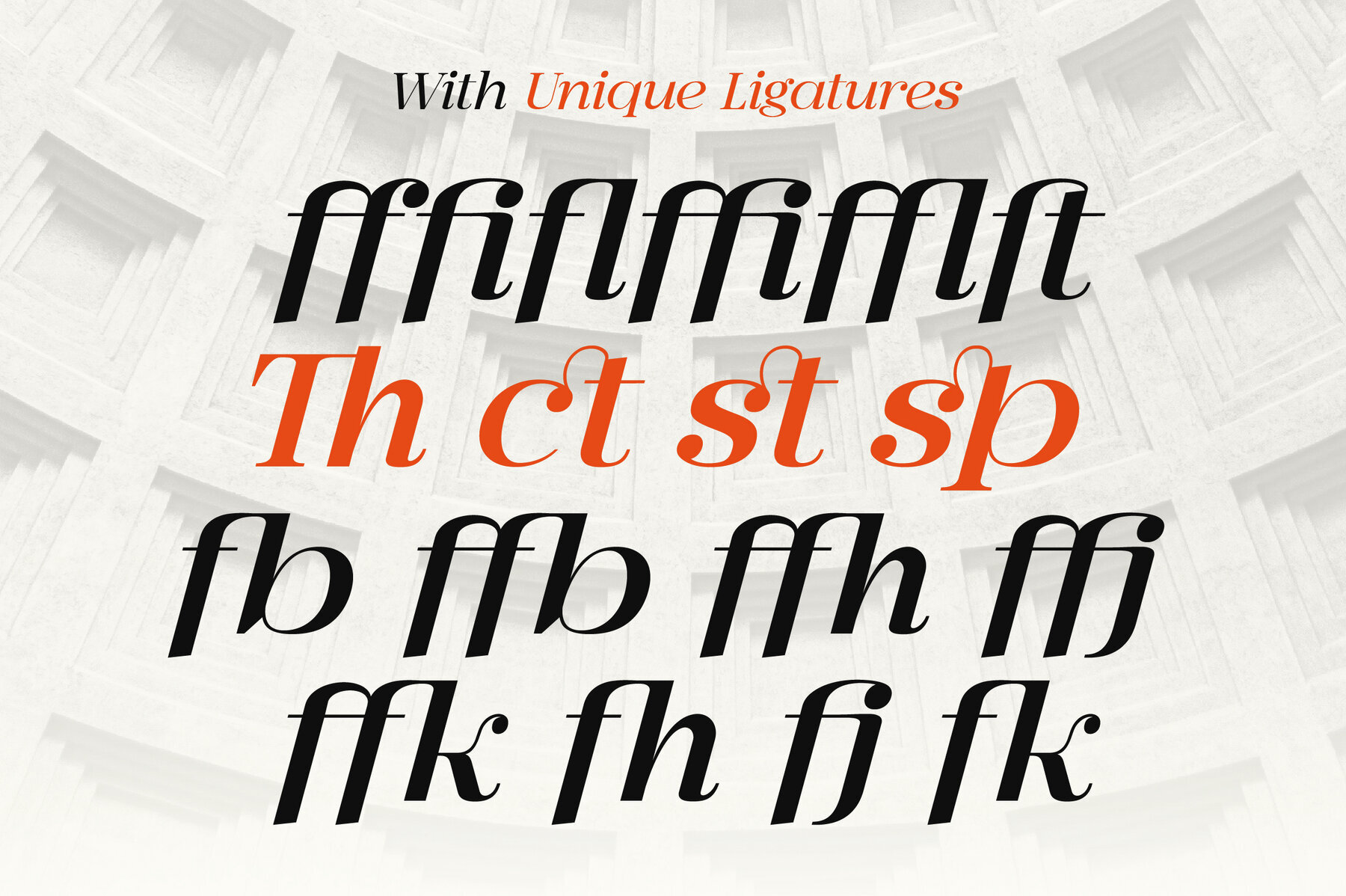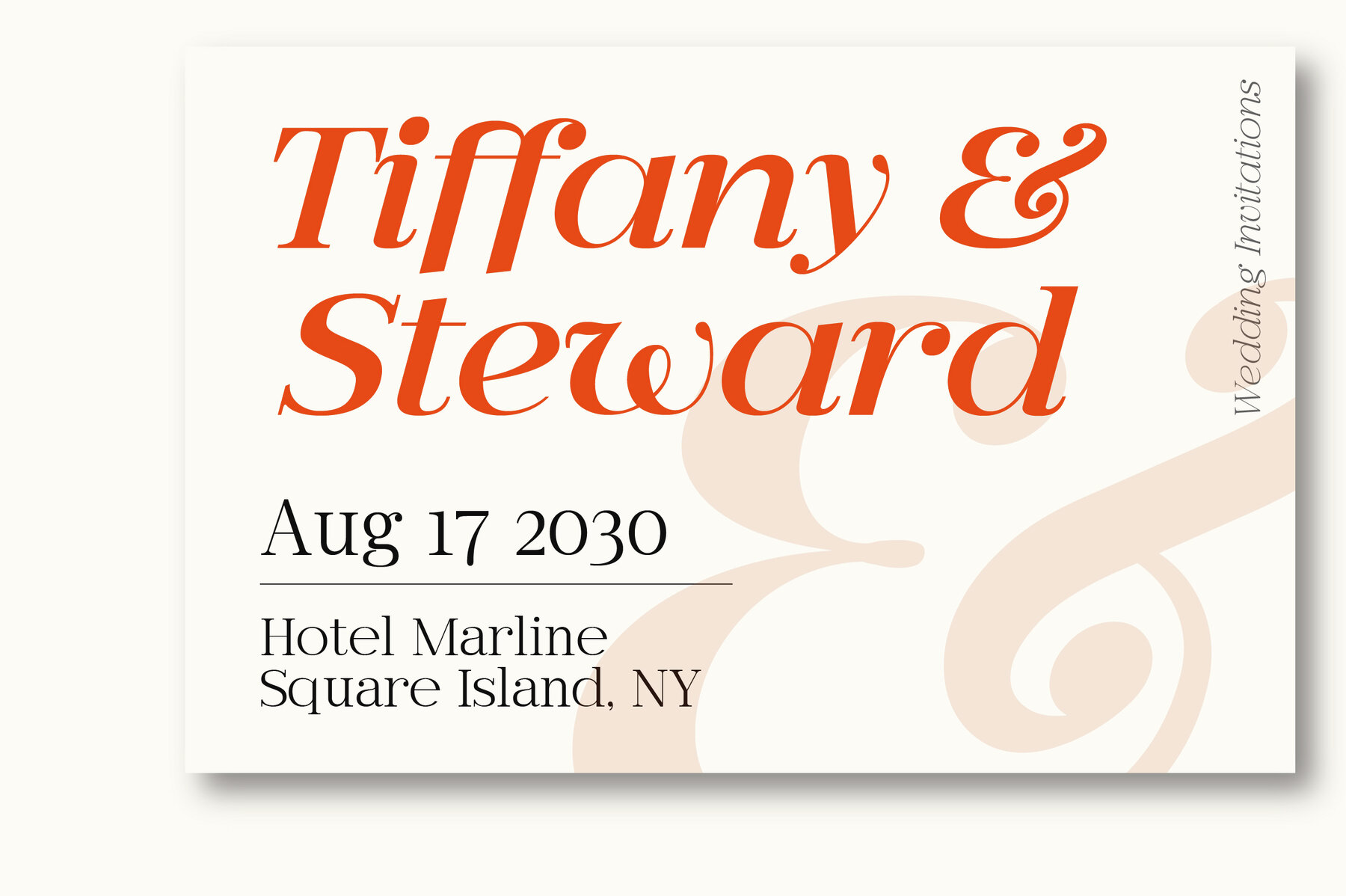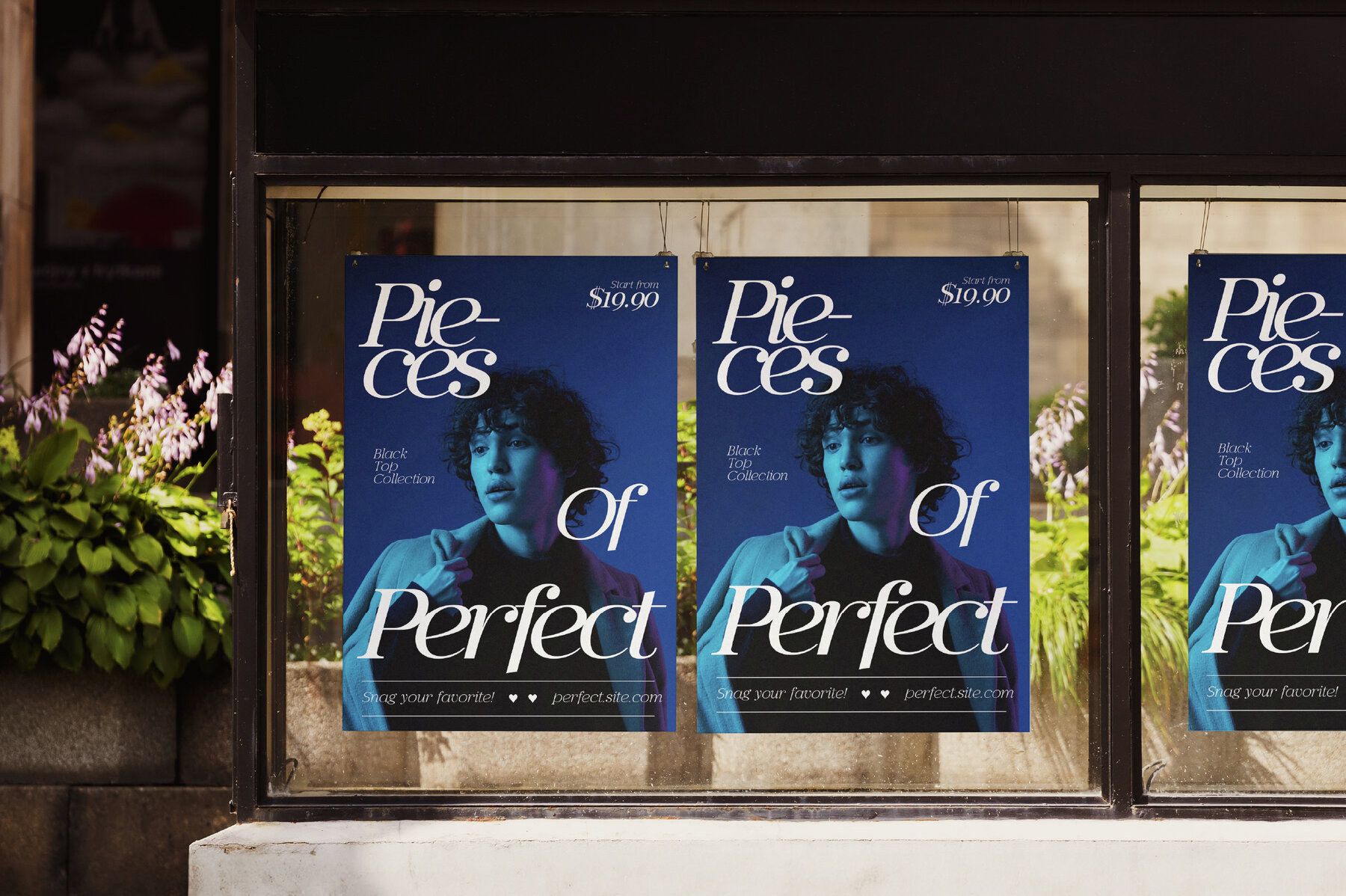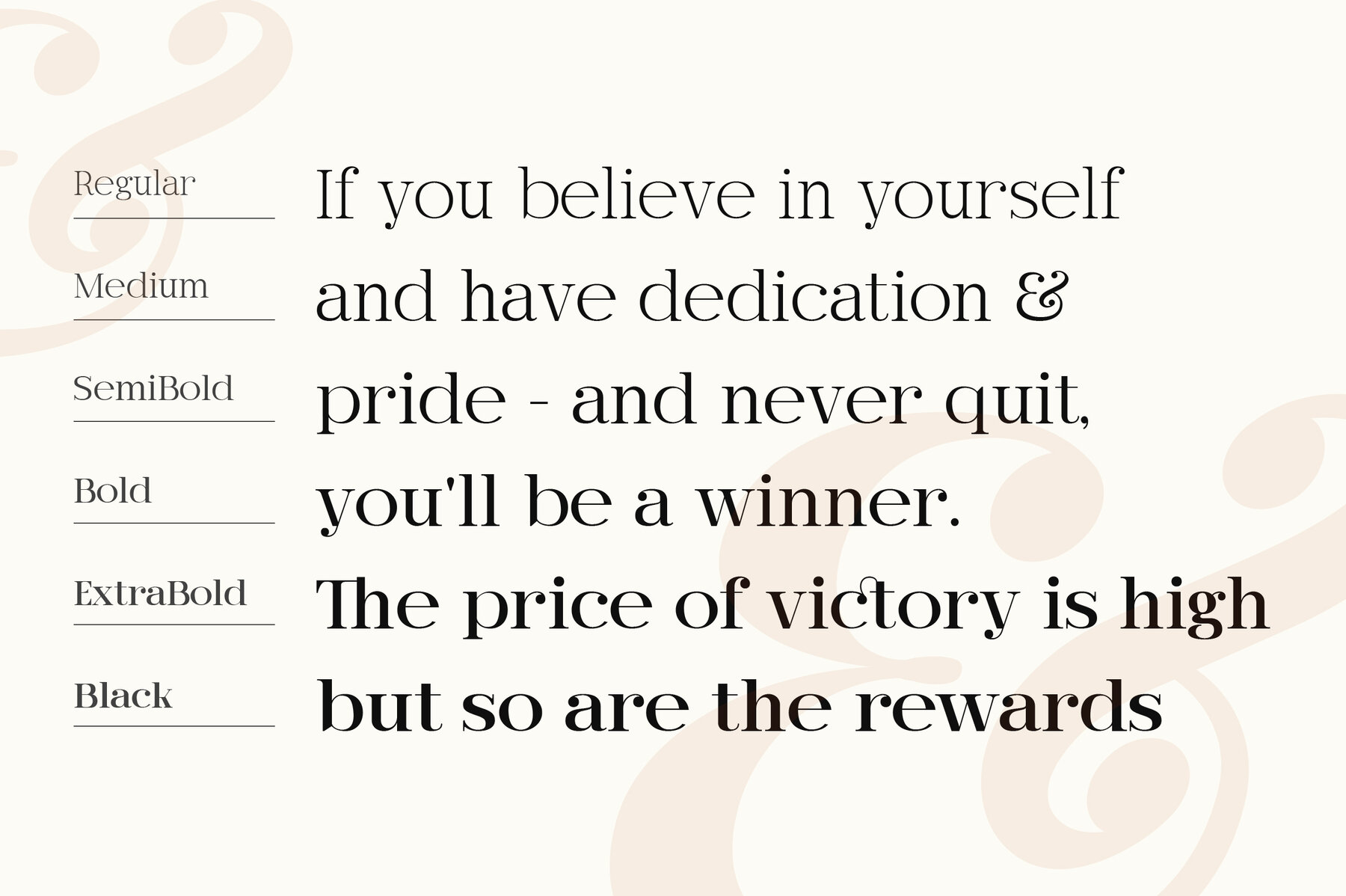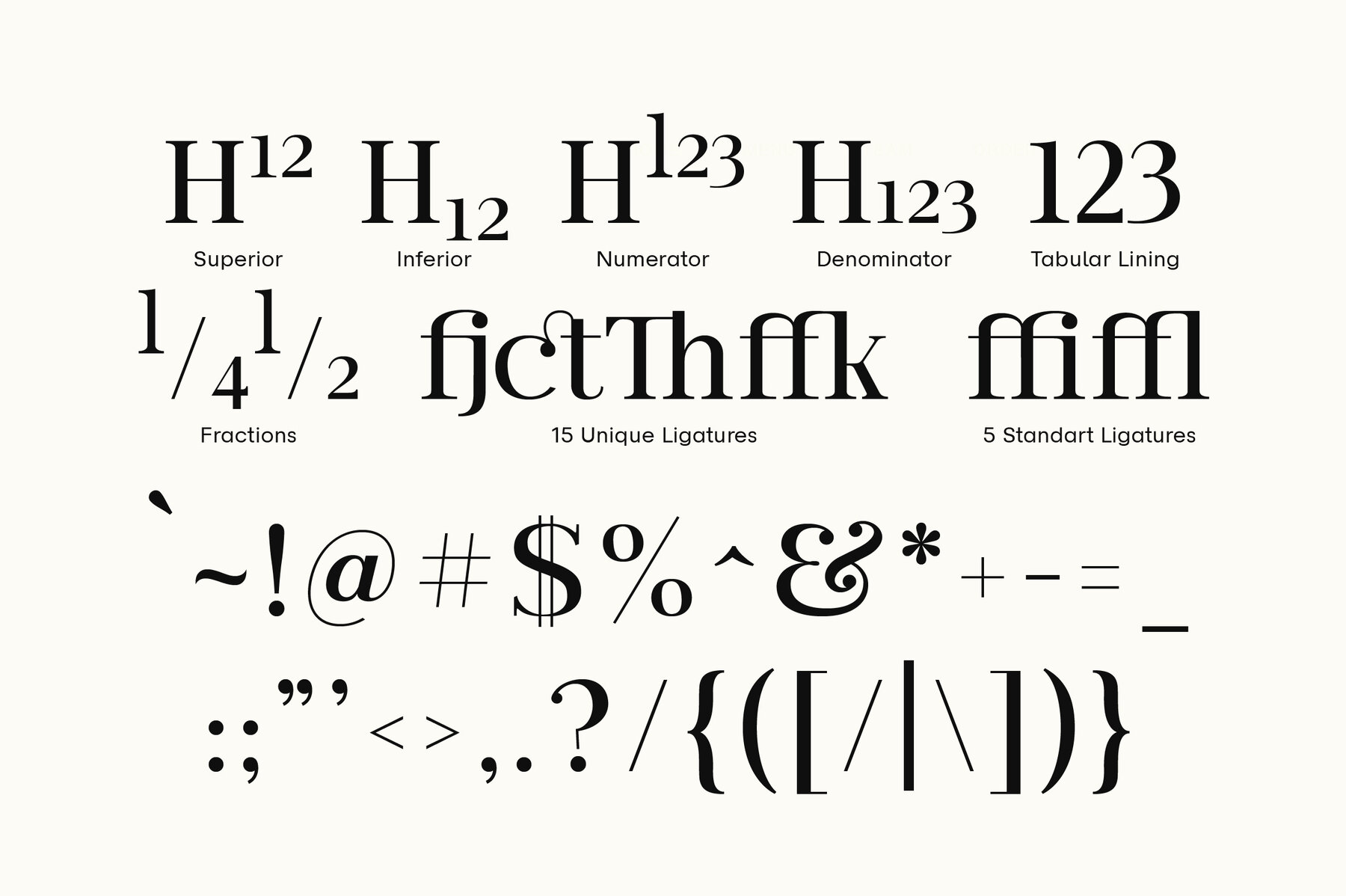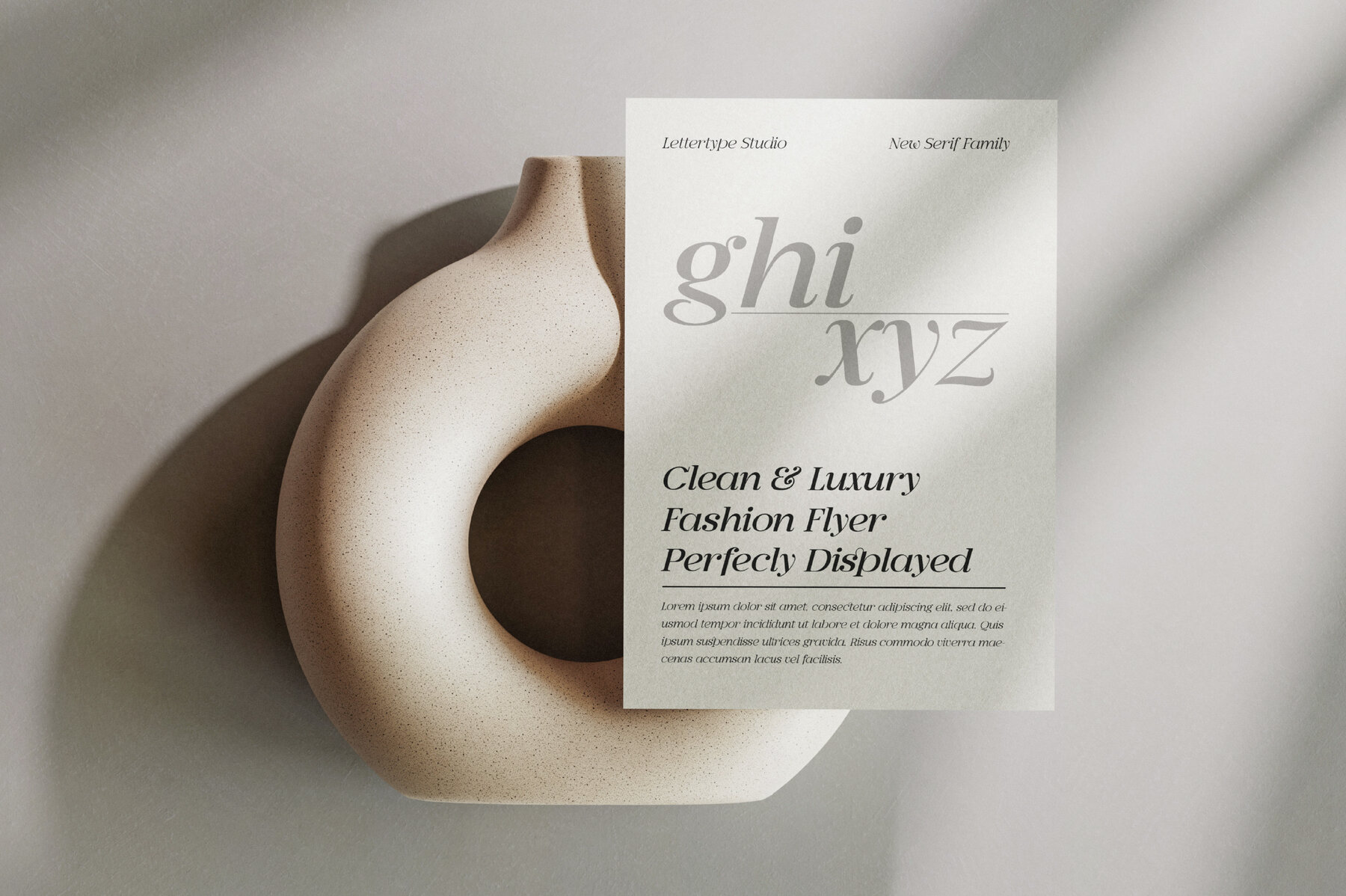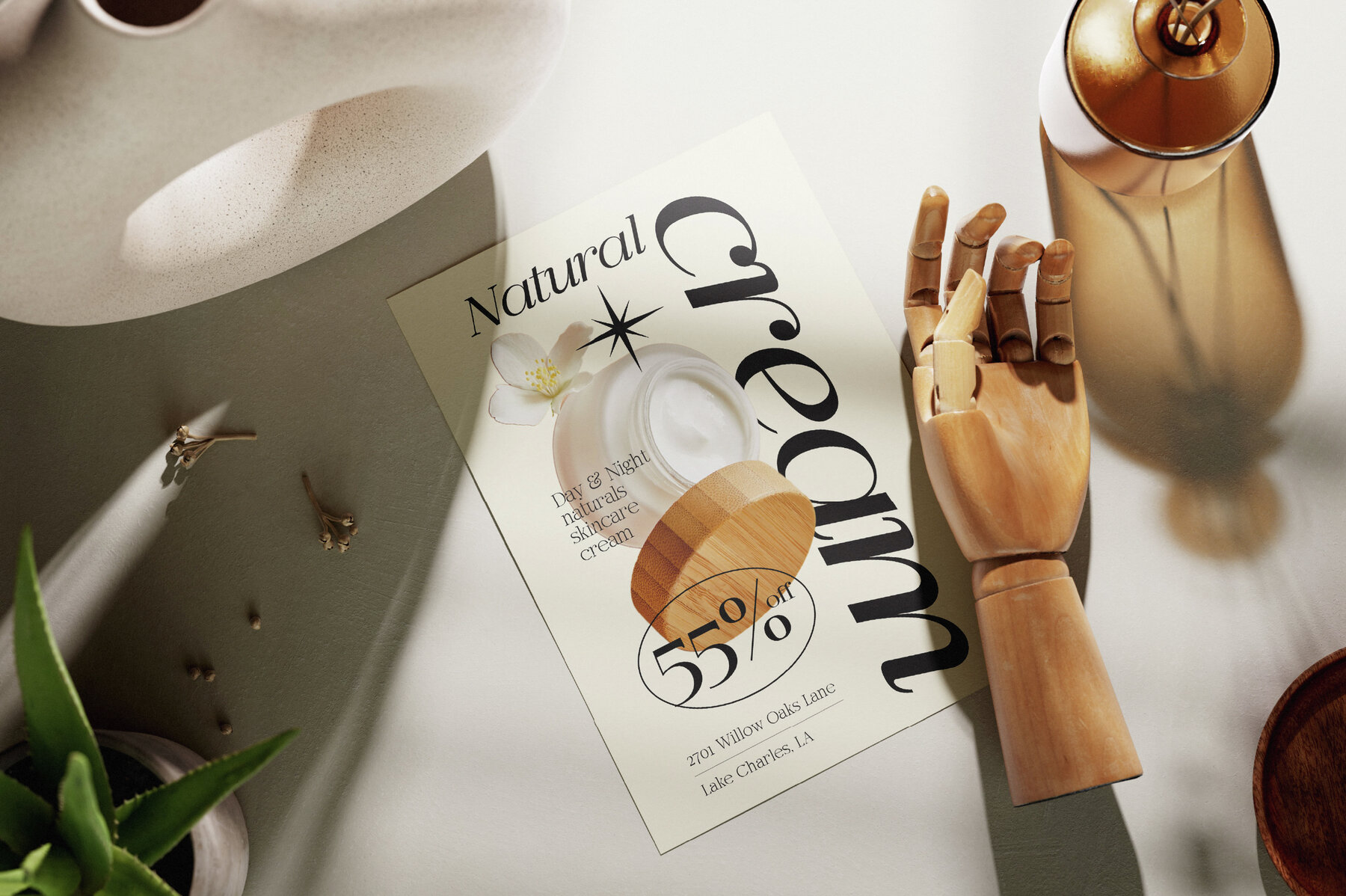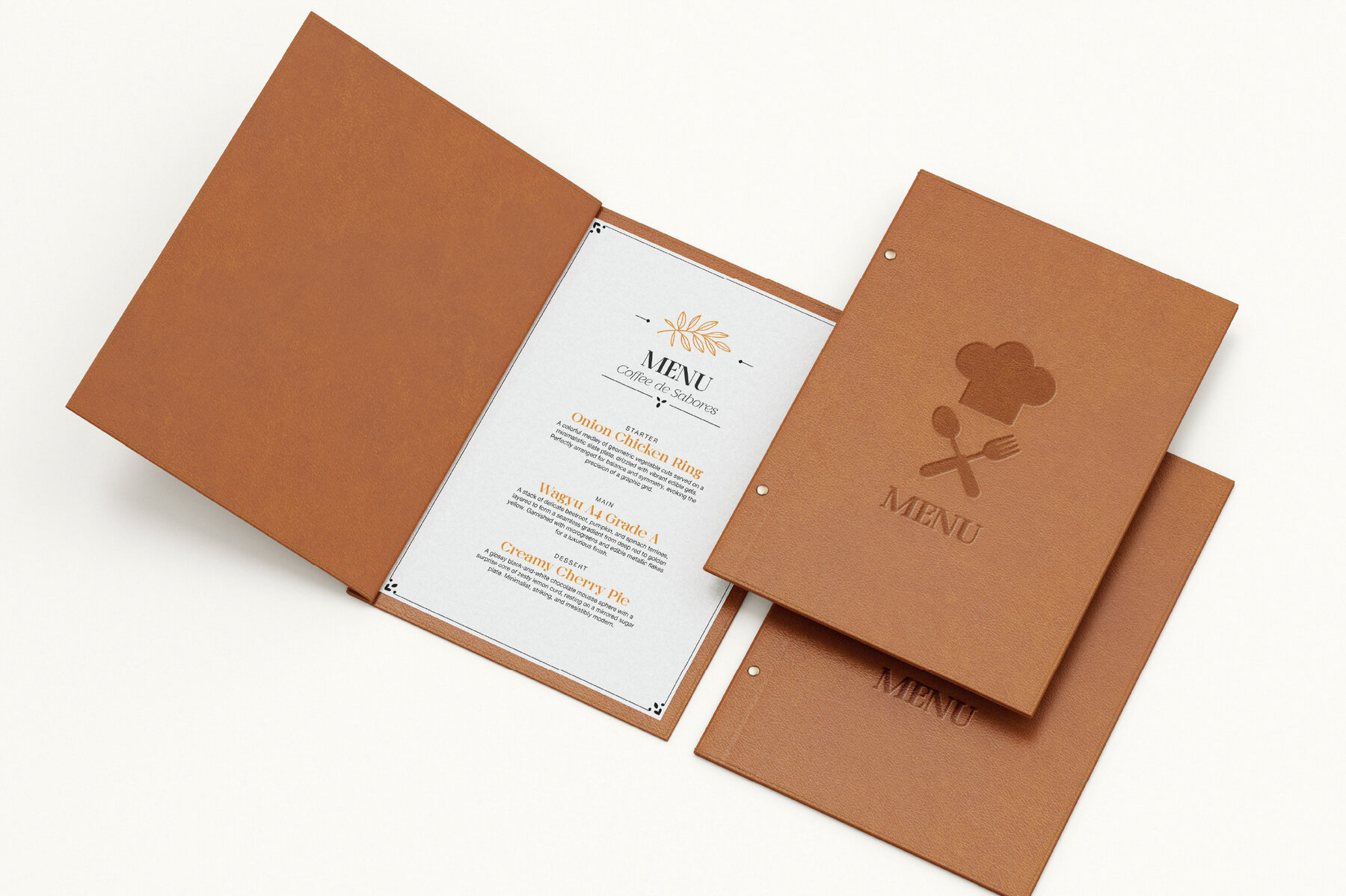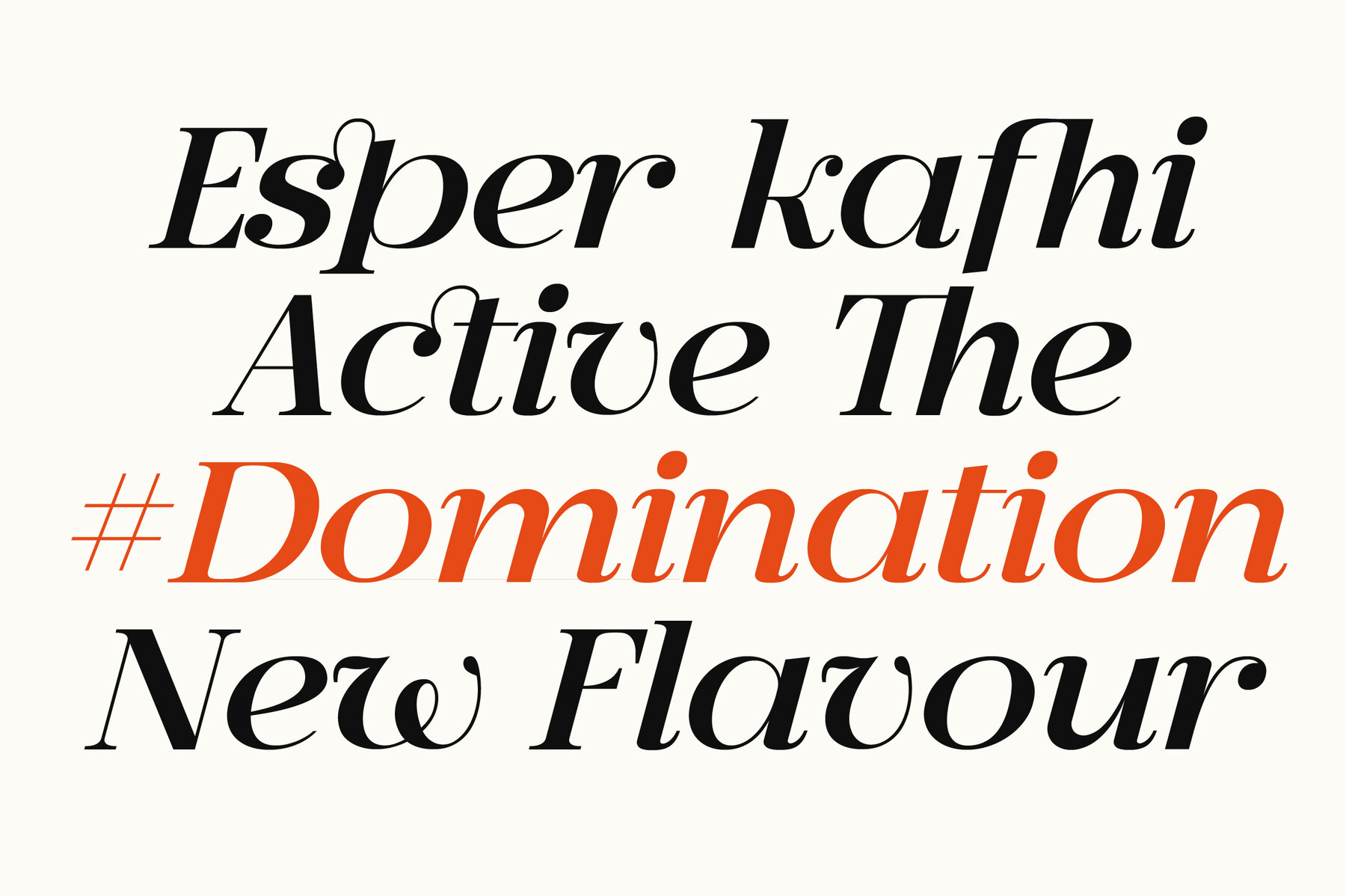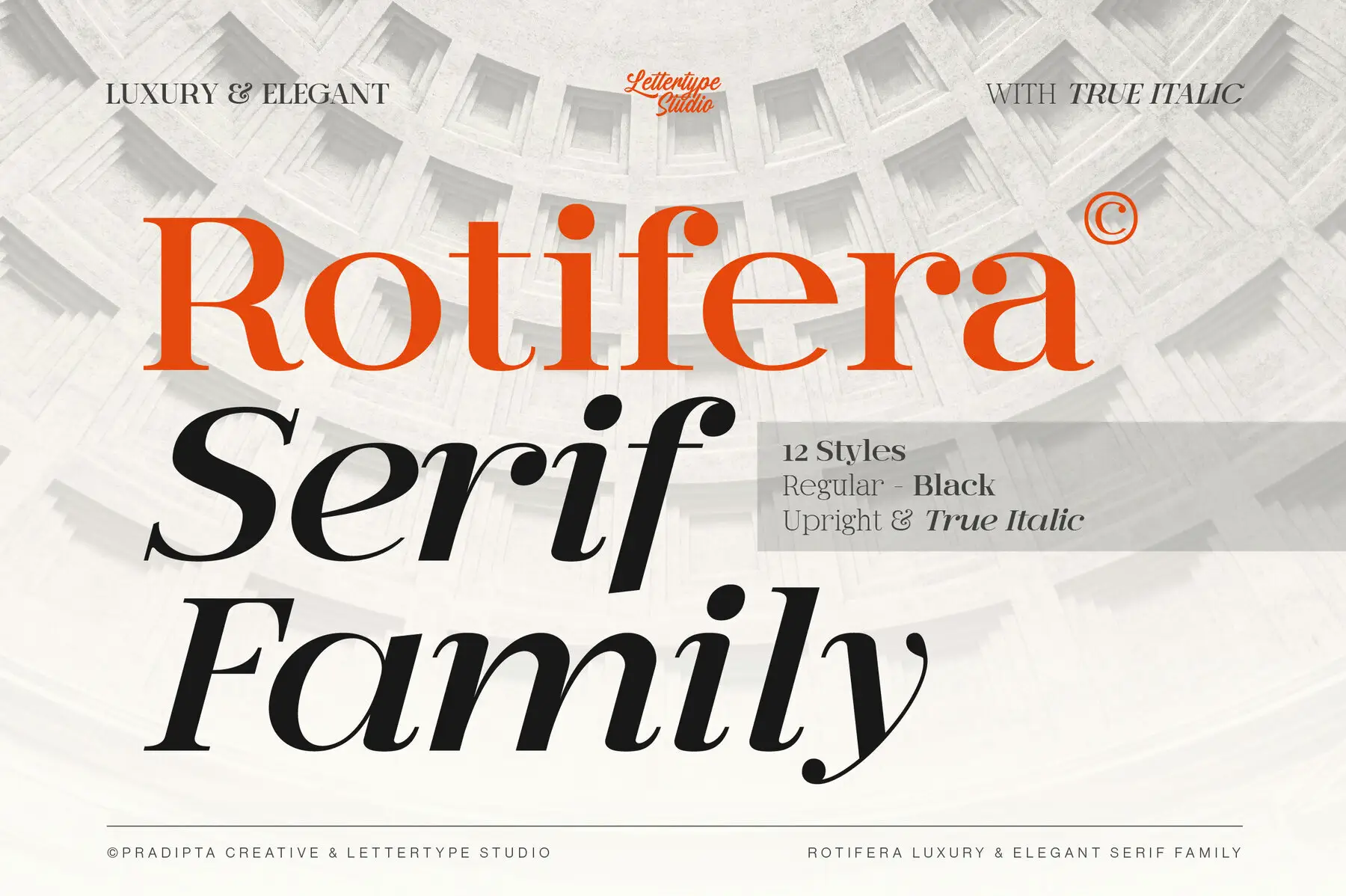
Rotifera Font
Rotifera draws upon the tradition of 18th-century serif typography, reinterpreted for designers who value clarity and distinctiveness. High-contrast letterforms and refined geometric nuances offer a striking presence suitable for editorial work, branding, or web design. Rotifera's blend of classic structure and modern elegance lends depth to headlines, logotypes, and sophisticated layouts—ensuring your work commands attention with poise and precision. The typeface adapts with ease to both digital and print projects, offering styles from regular to black with true italics. Multilingual language support and a broad set of ligatures enable diverse, international applications. Whether you require large-format statements or nuanced text, Rotifera maintains legibility and grace. Features:Rotifera: High-Contrast Serif for Timeless Typography